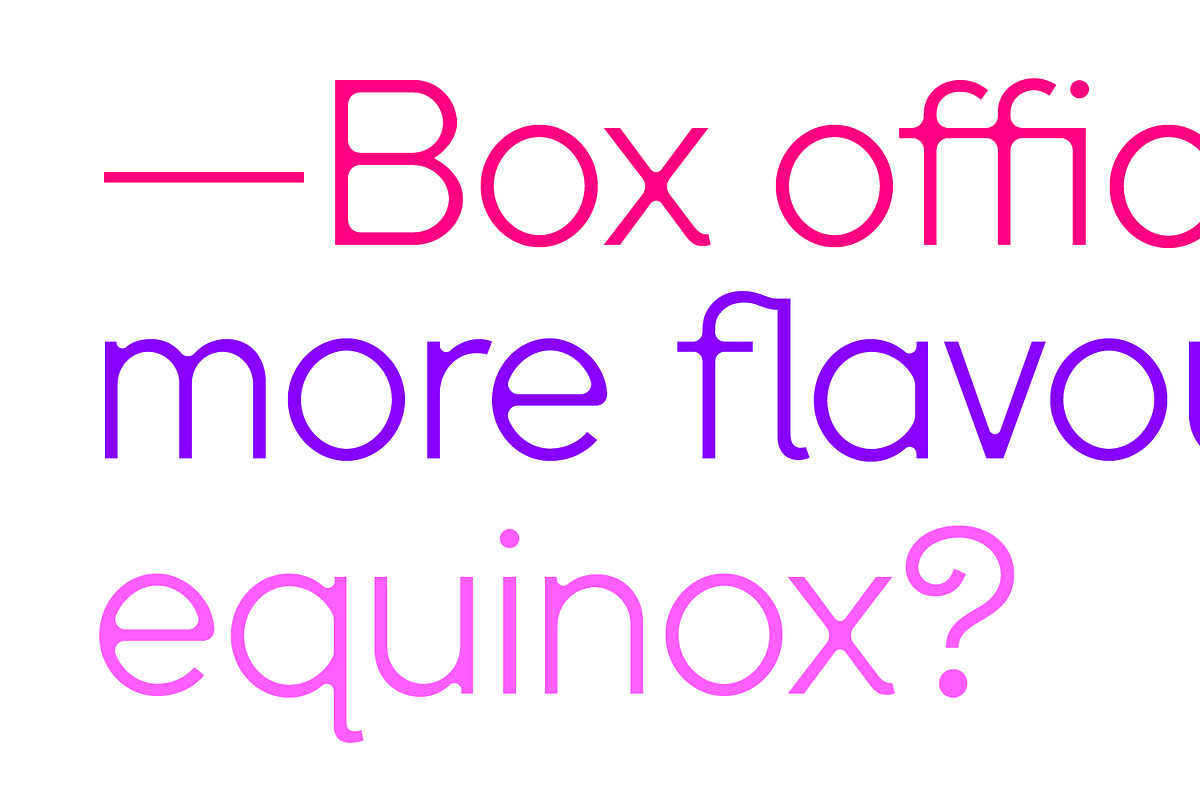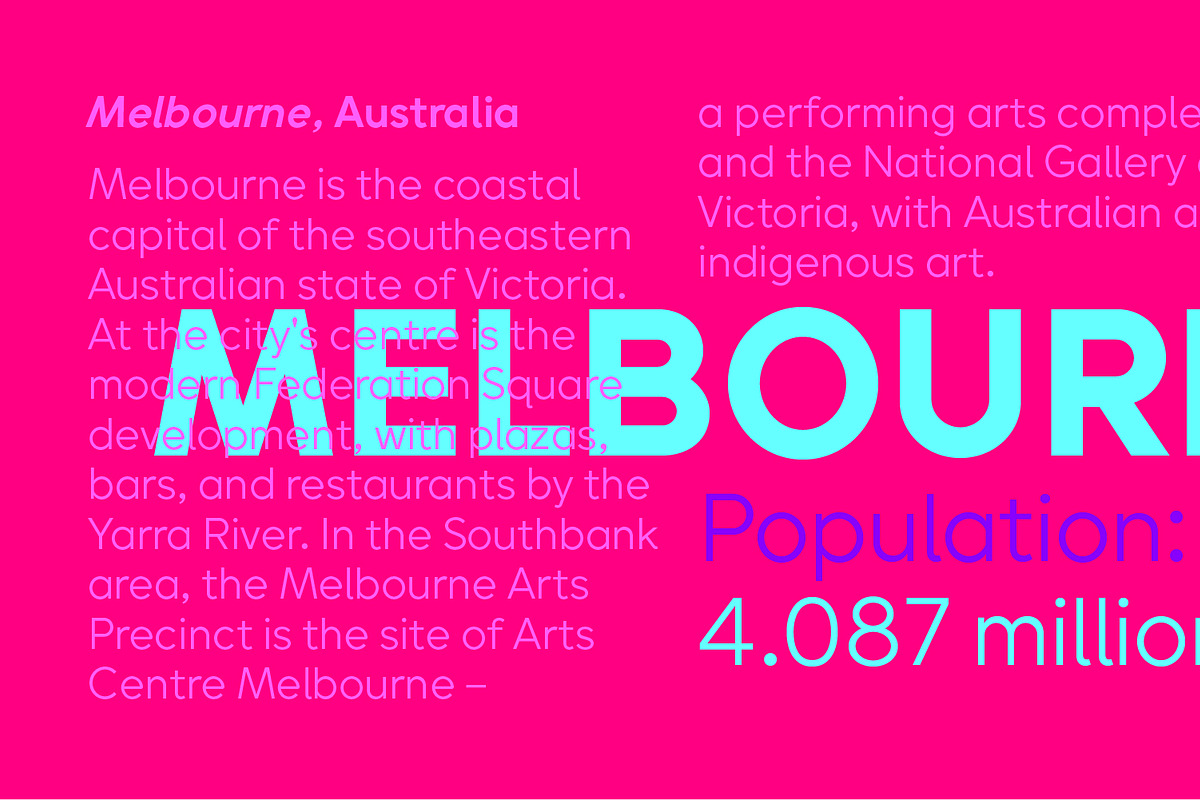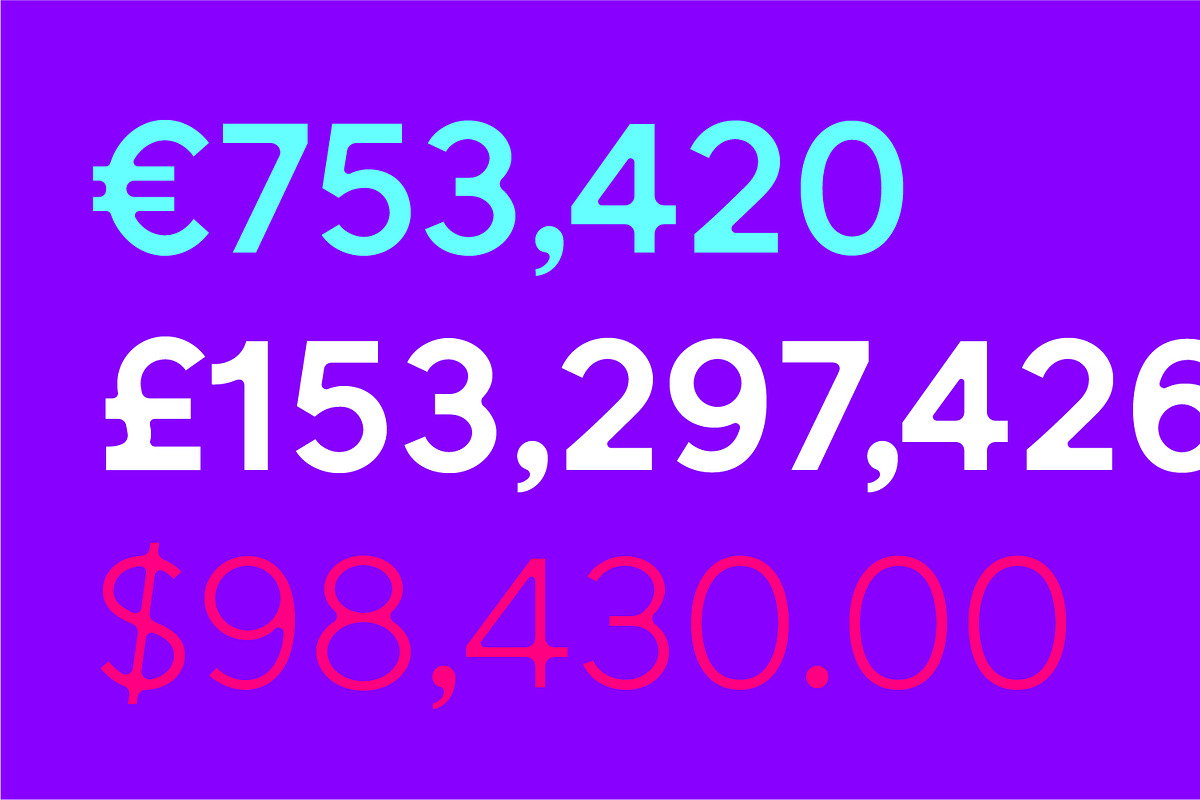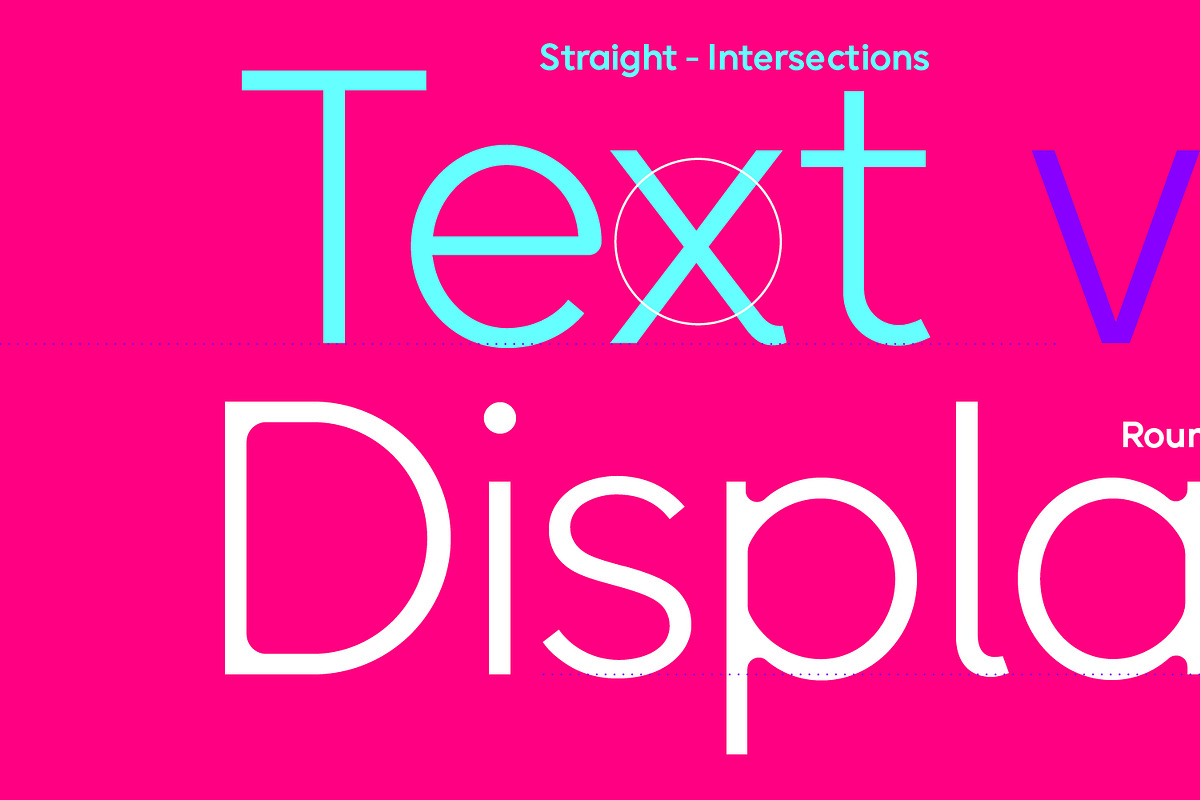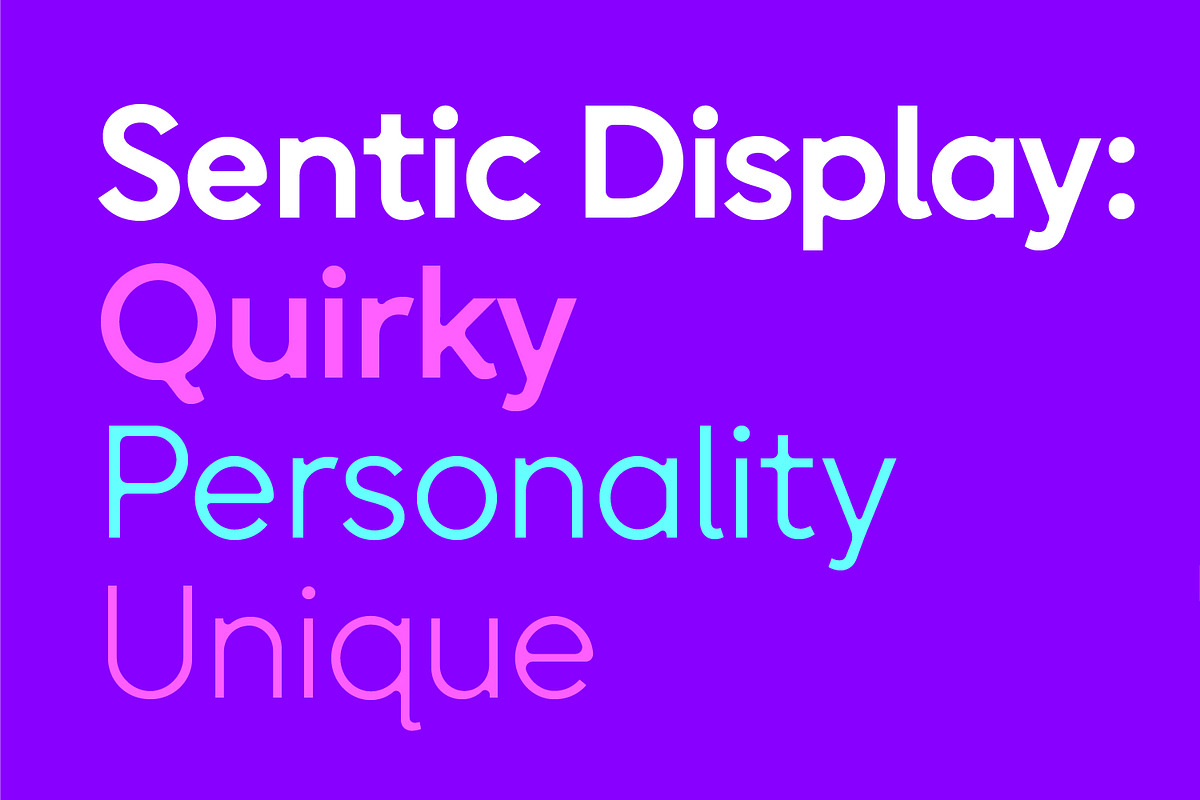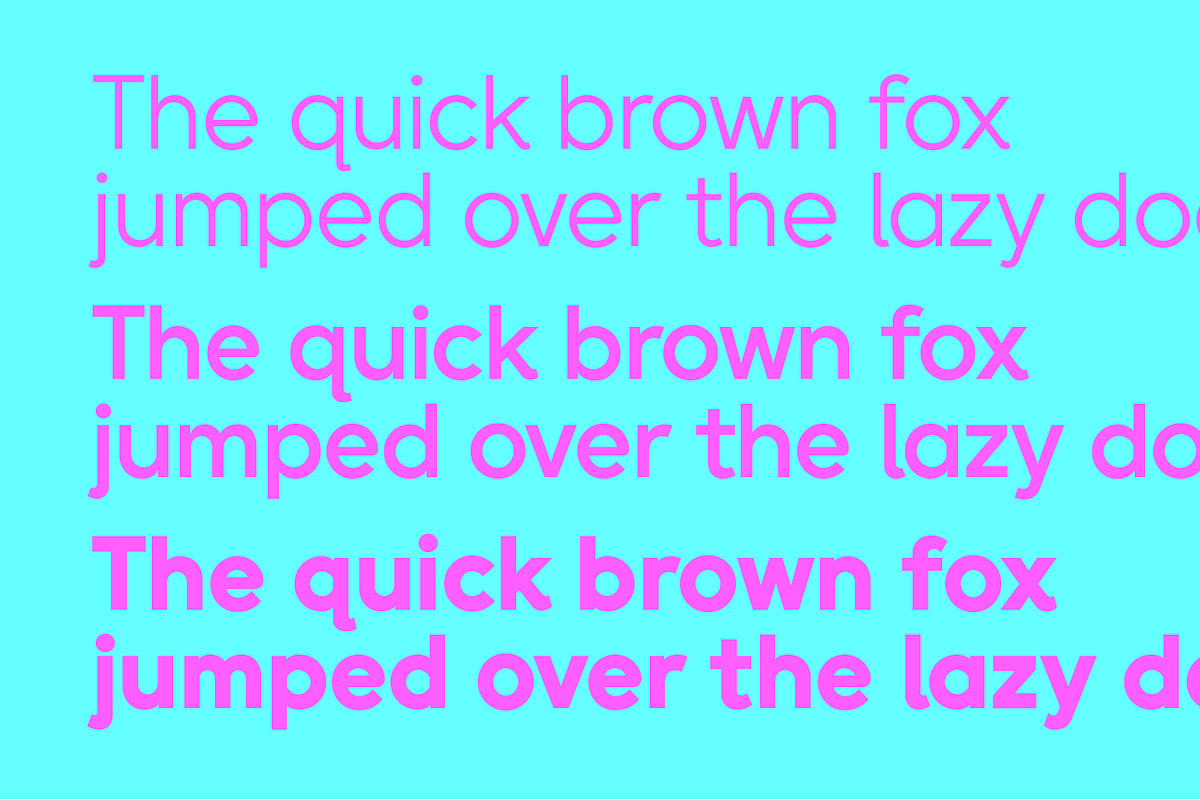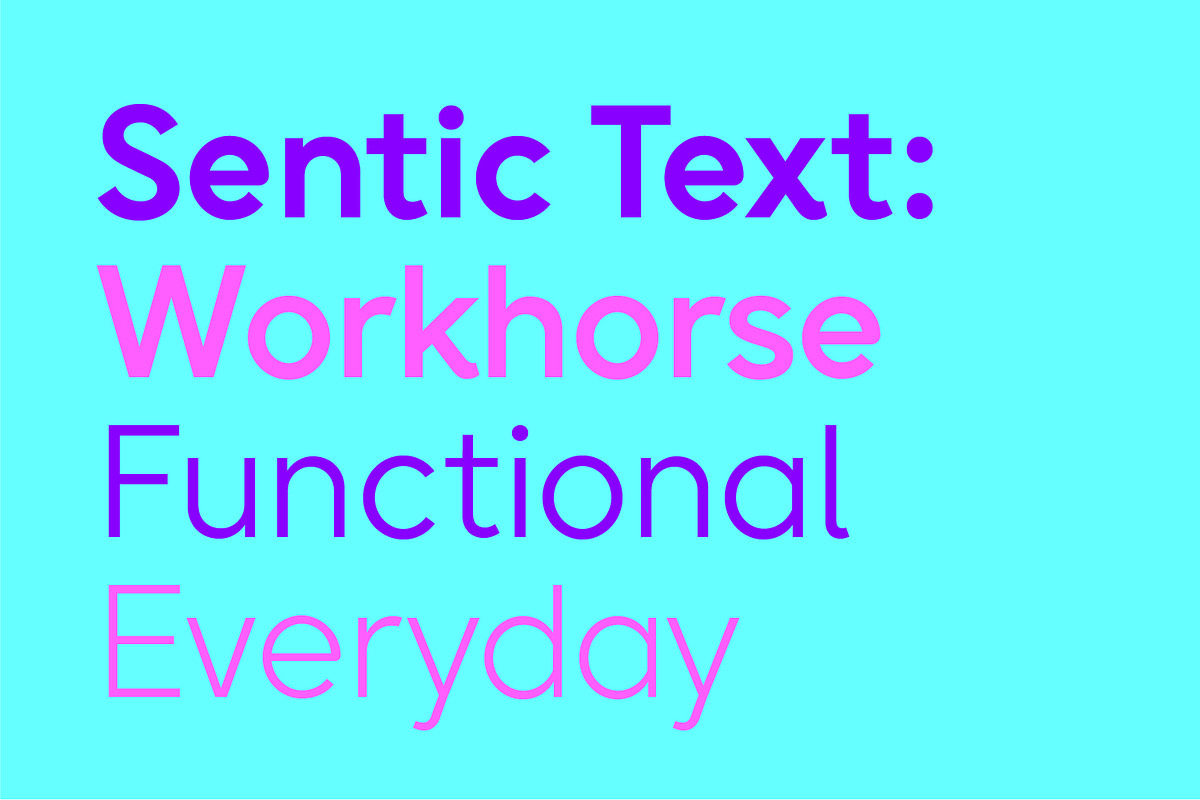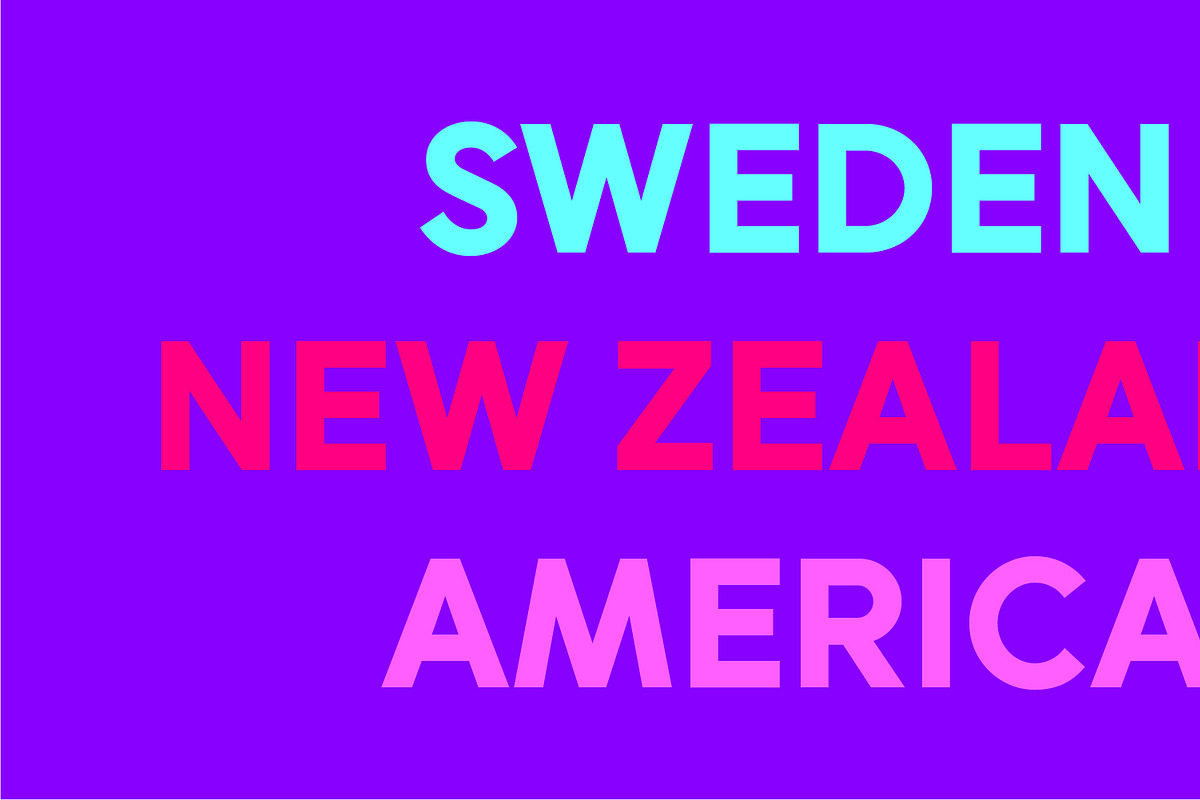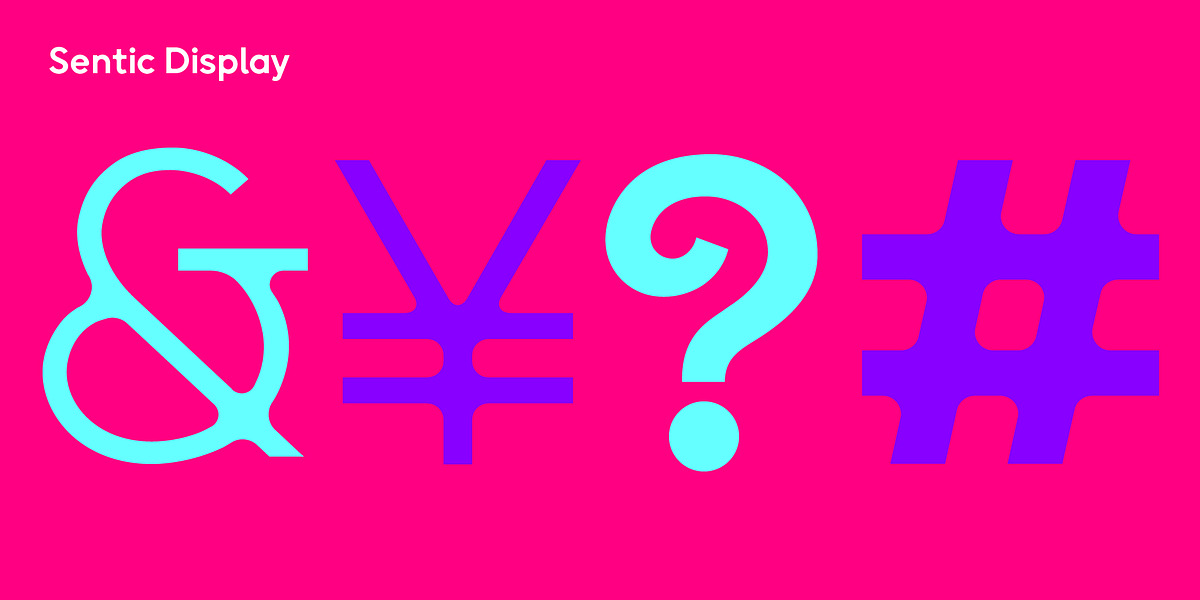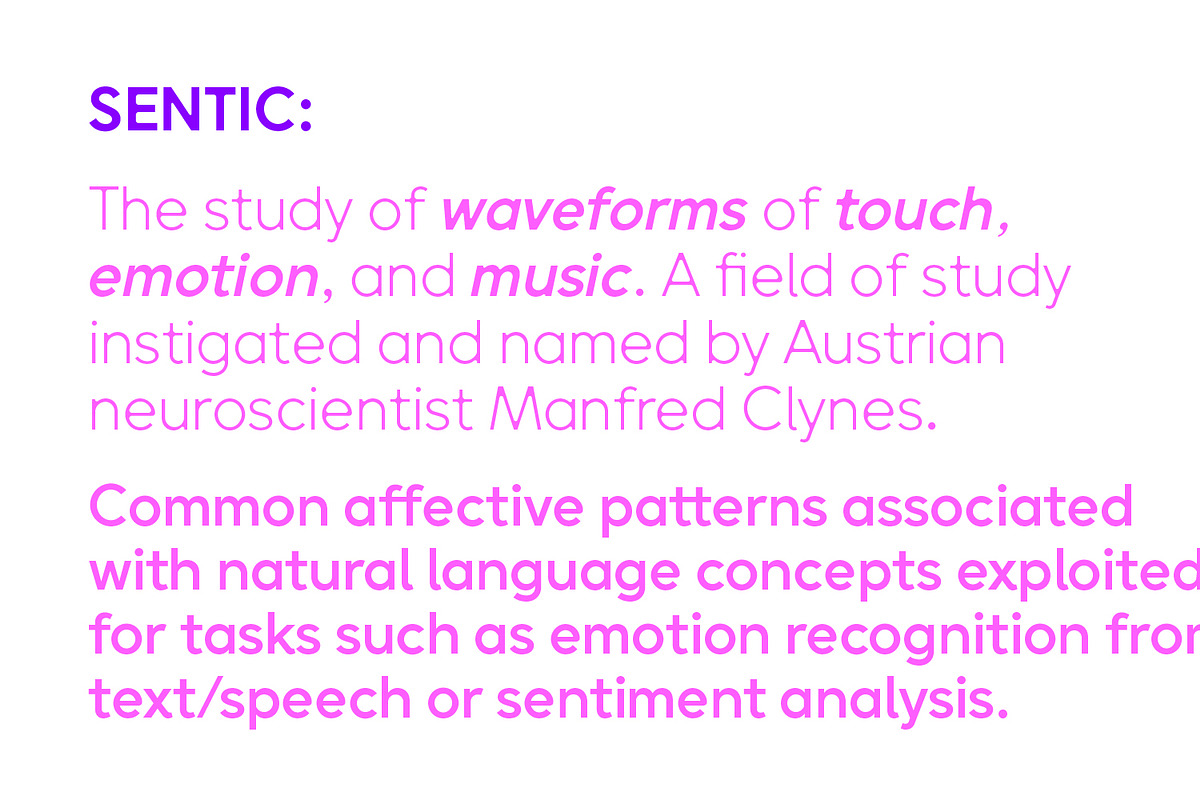
Sentic
Sentic is a geometric sans-serif font that incorporates humanist elements. The display version features rounded intersecting forms. Its design is based on the affective patterns found in natural language, text, and speech.